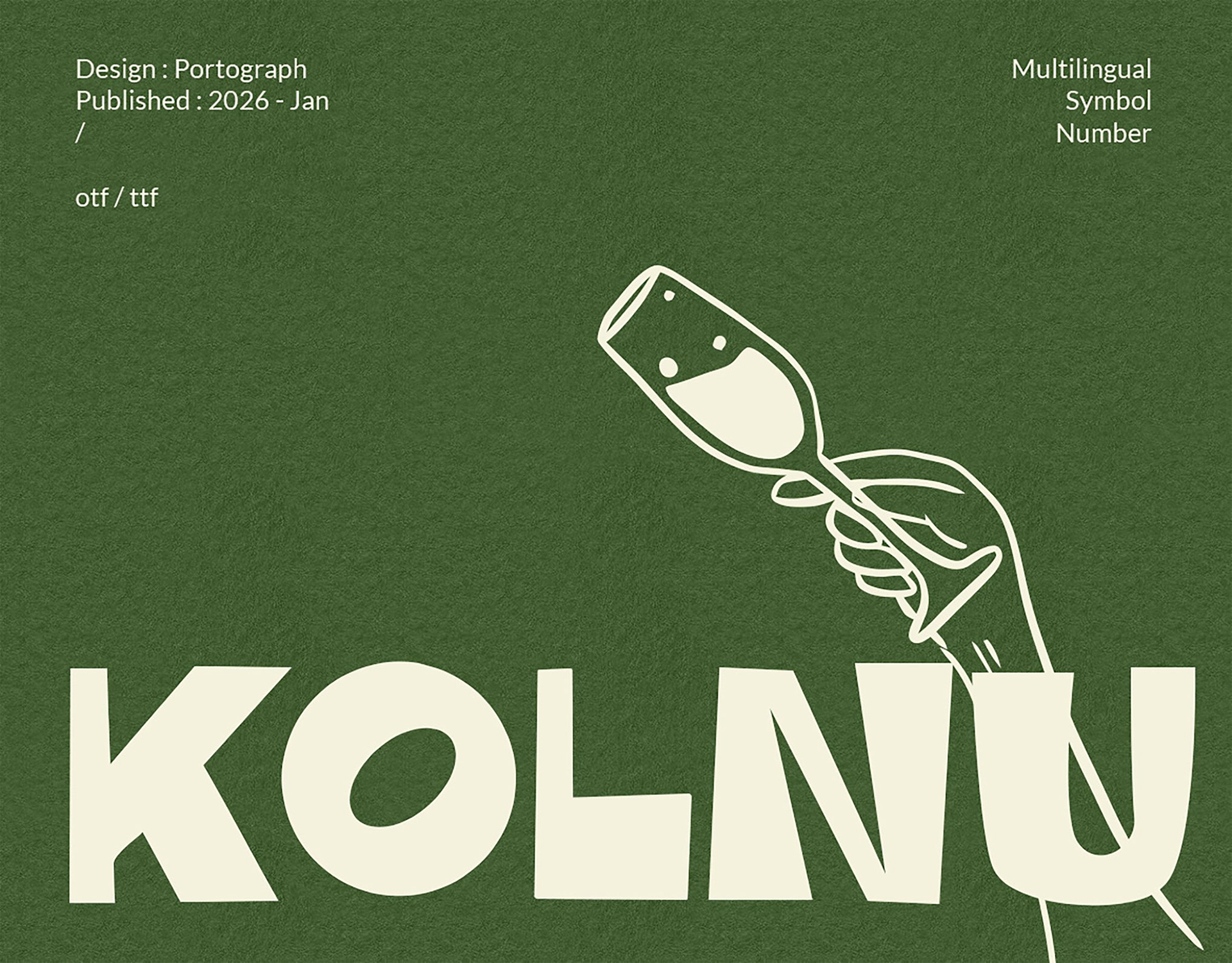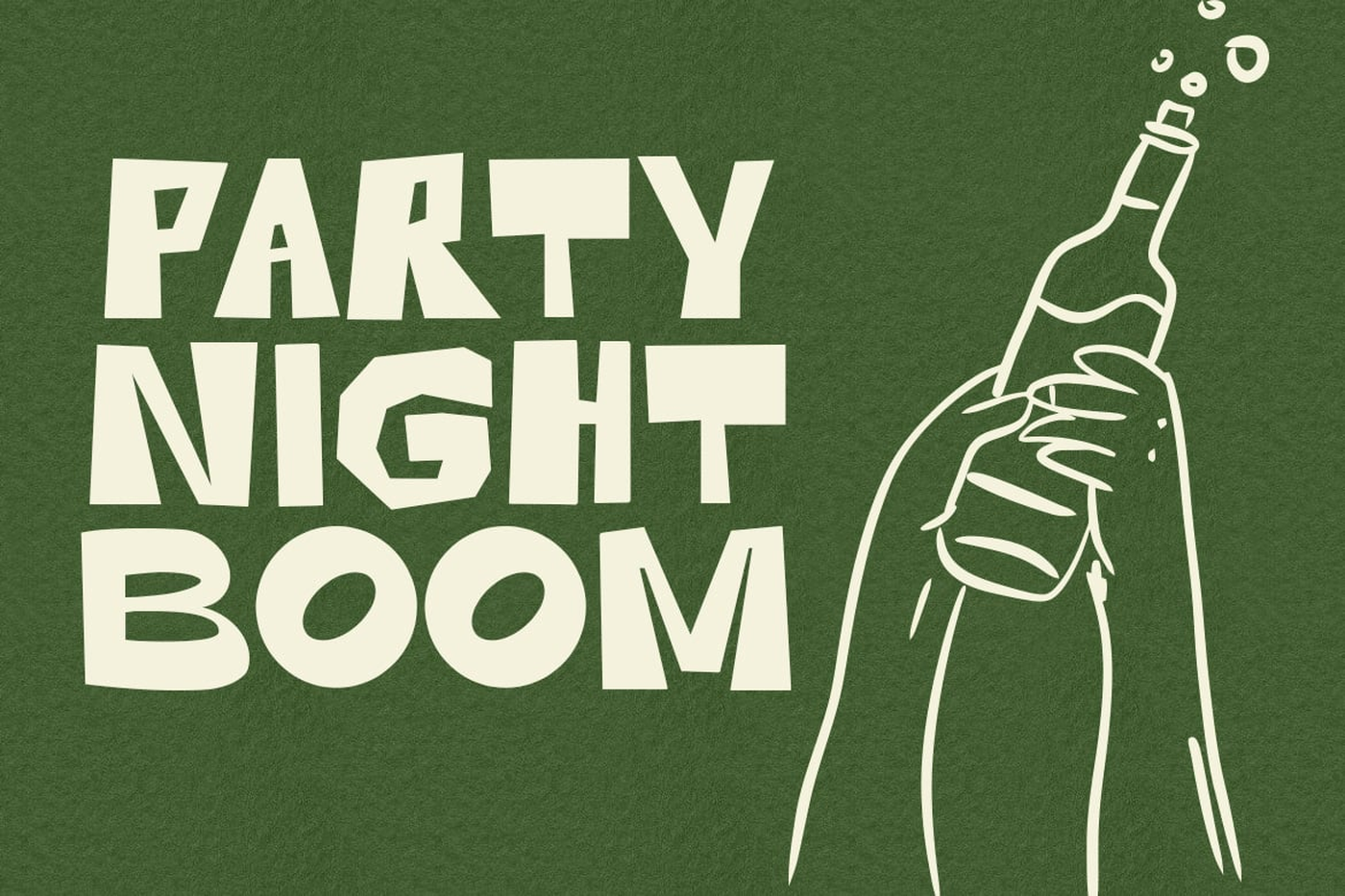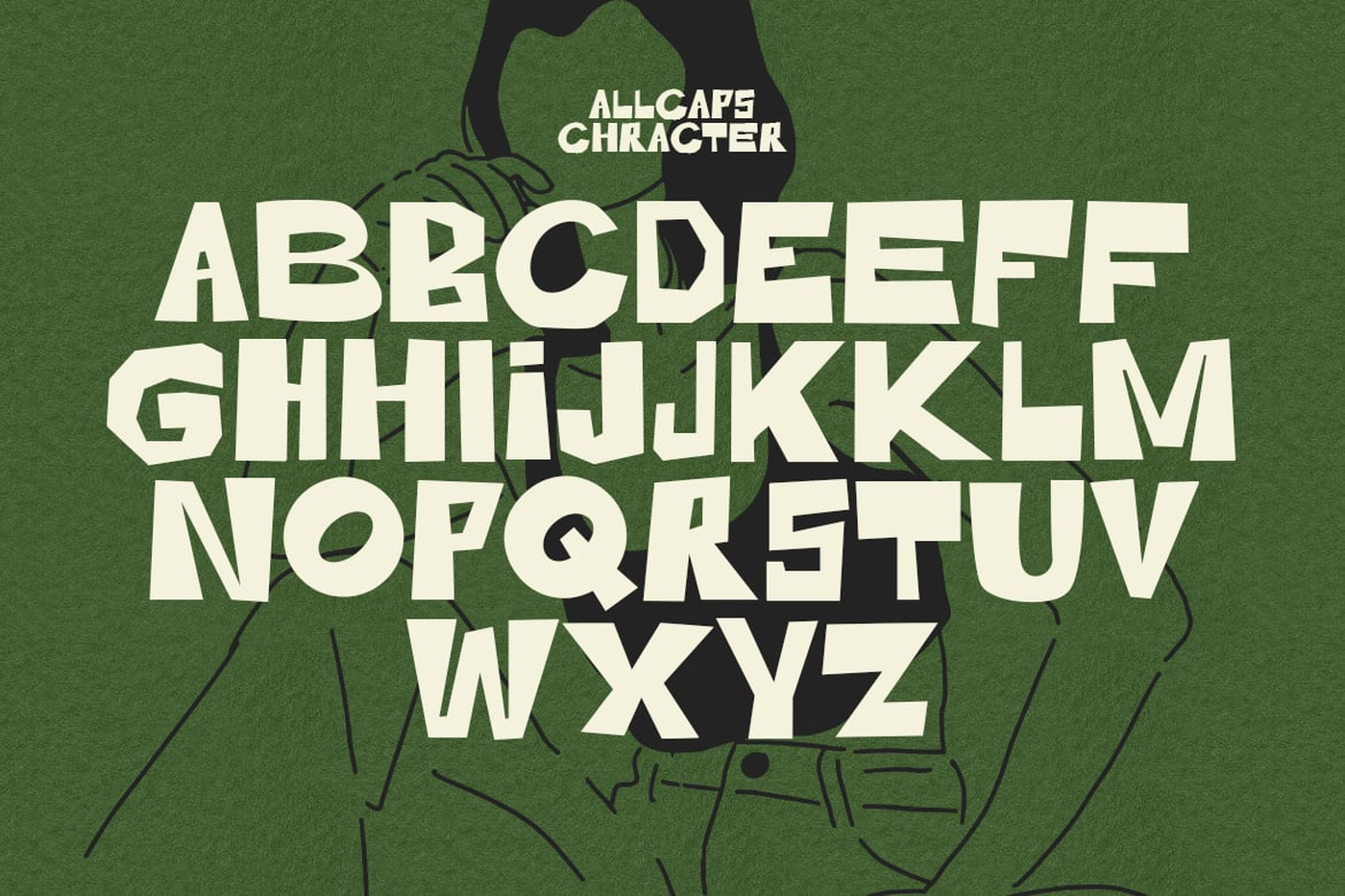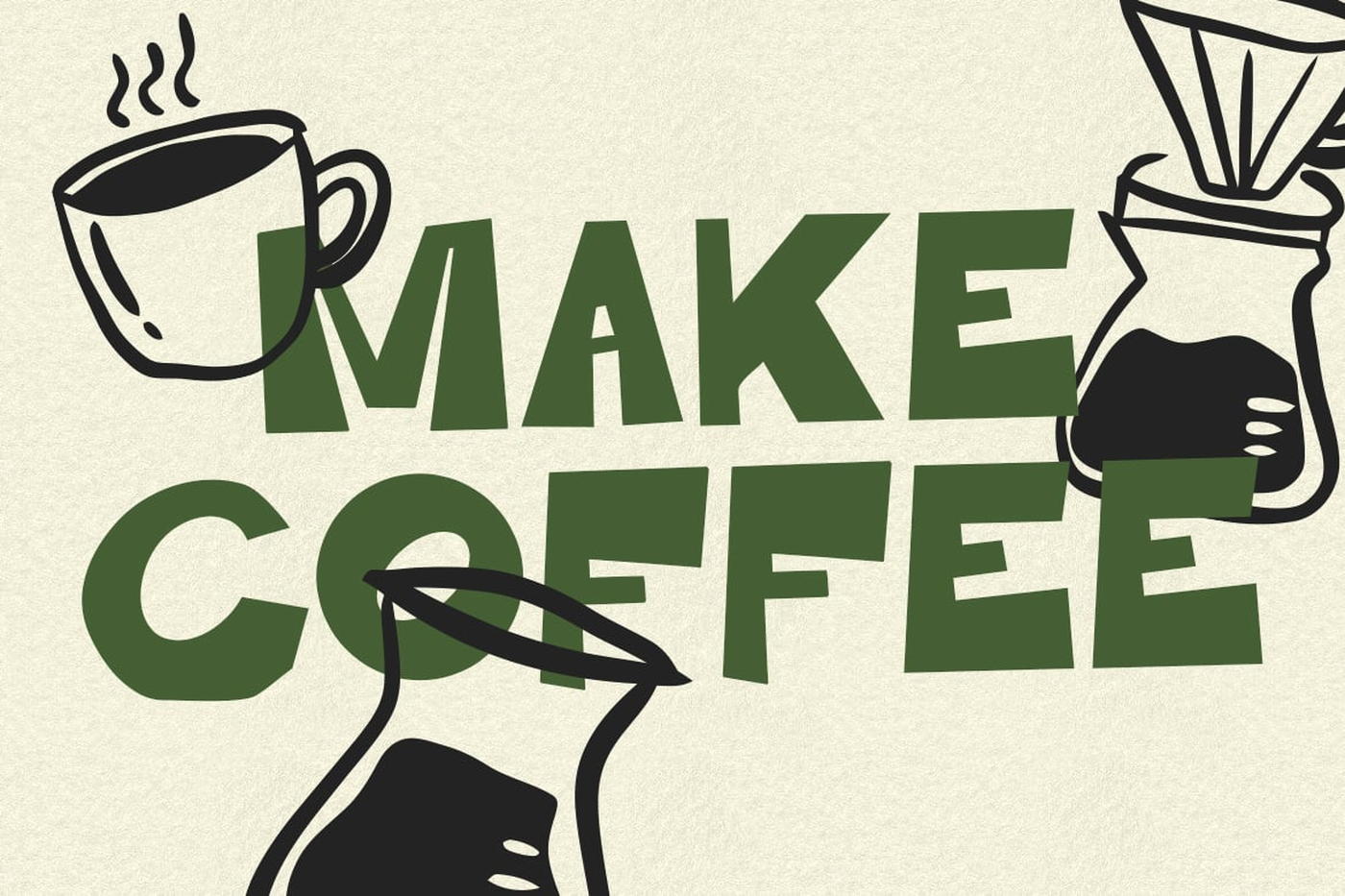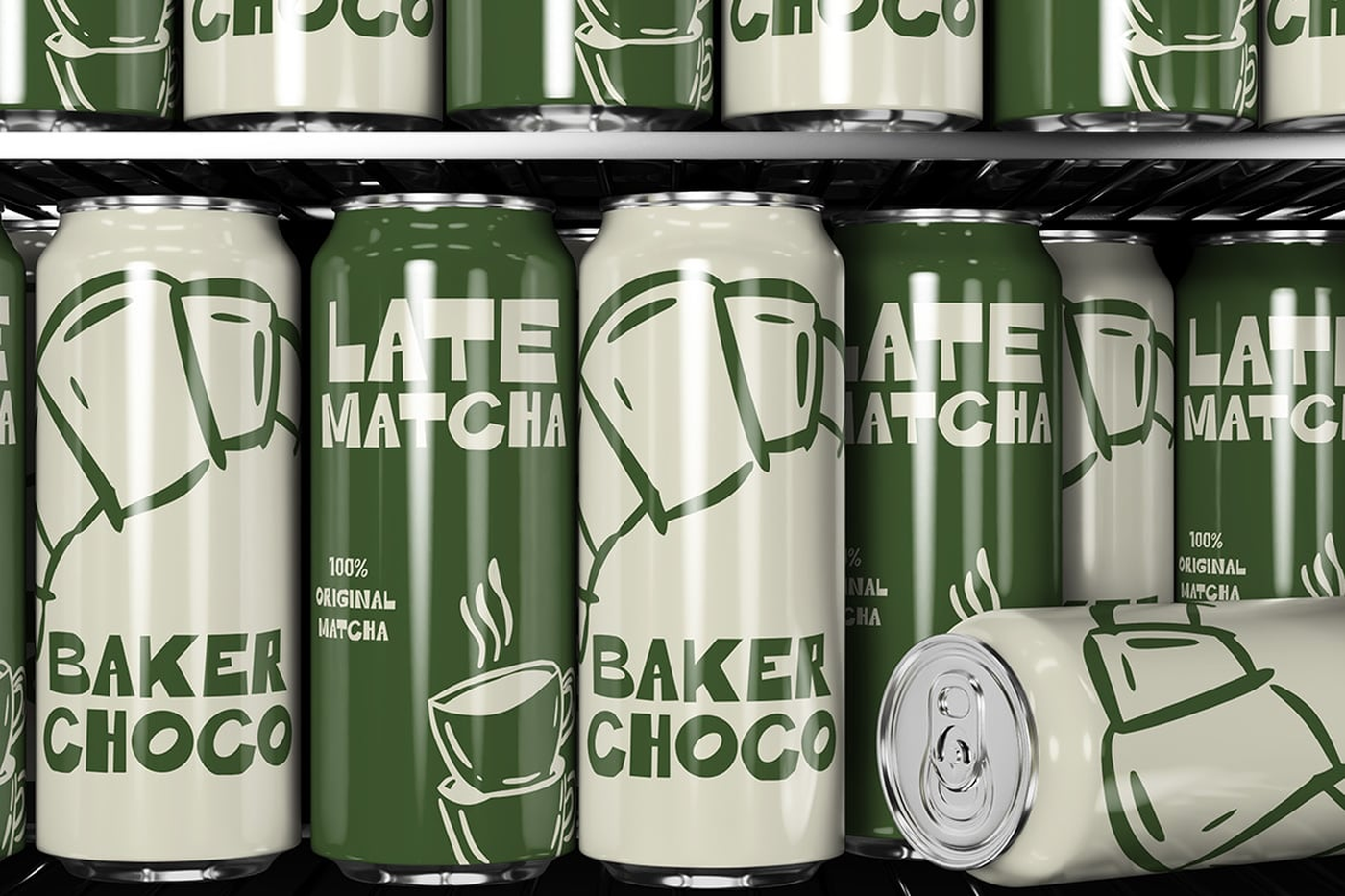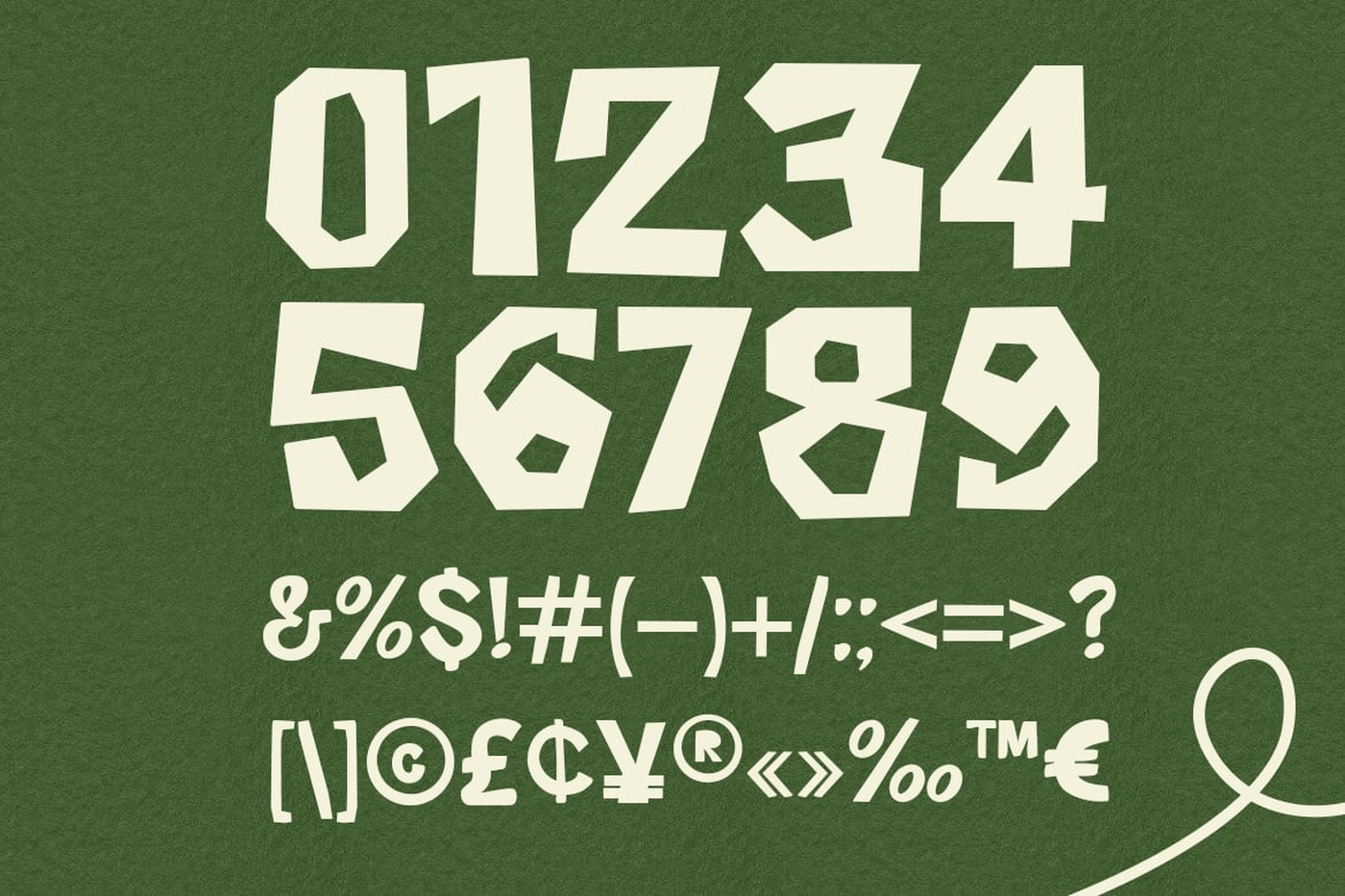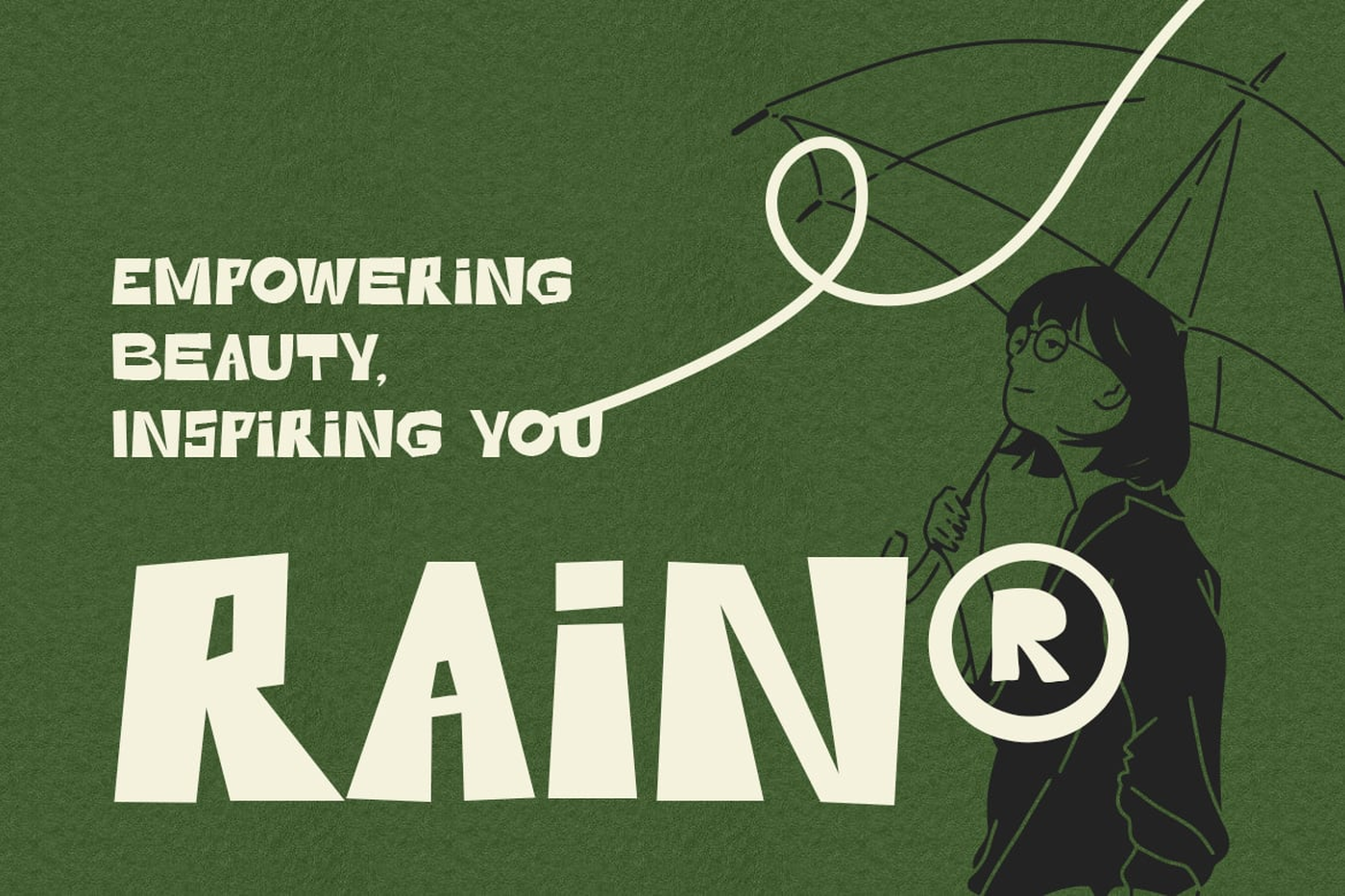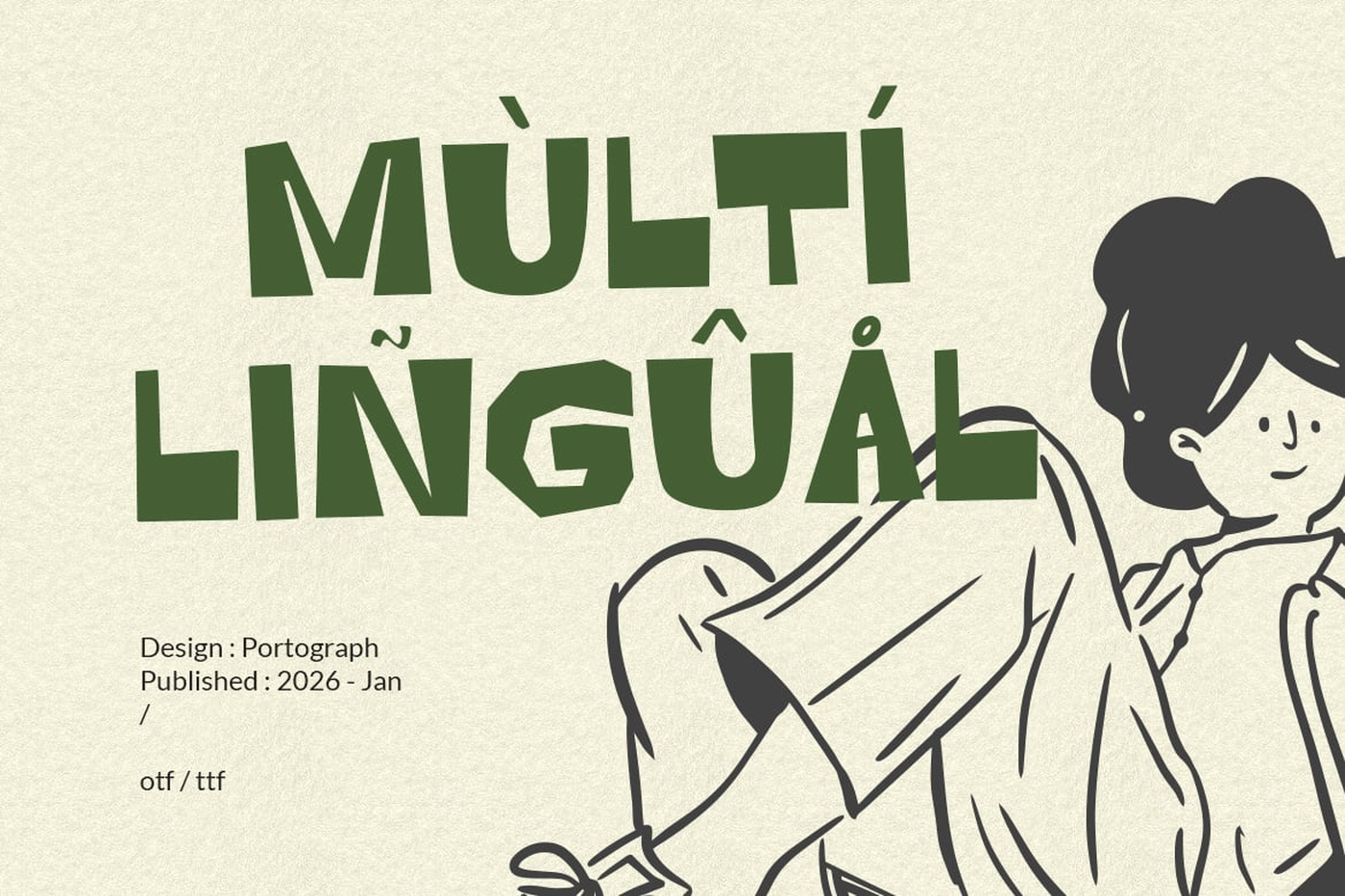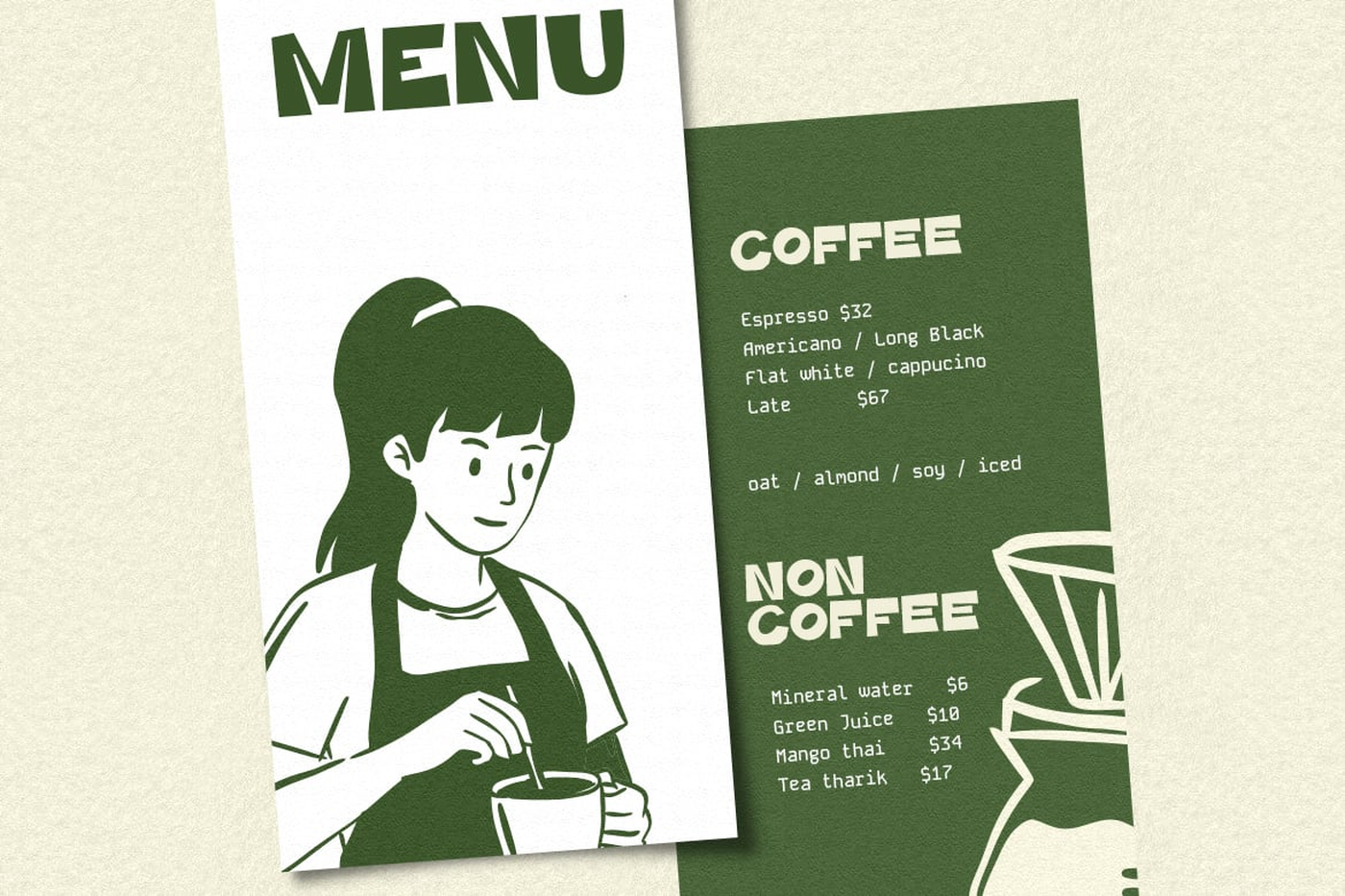
Kolnu - Display Font
Kolnu is a handcrafted display typeface with a bold, organic, and friendly character. Inspired by coffee culture, artisan packaging, and modern vintage branding, this font delivers a warm and authentic feel to your designs.